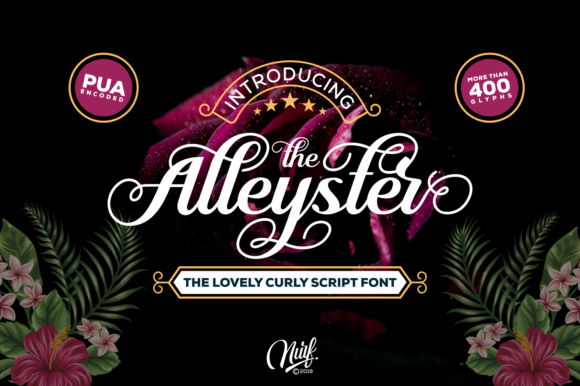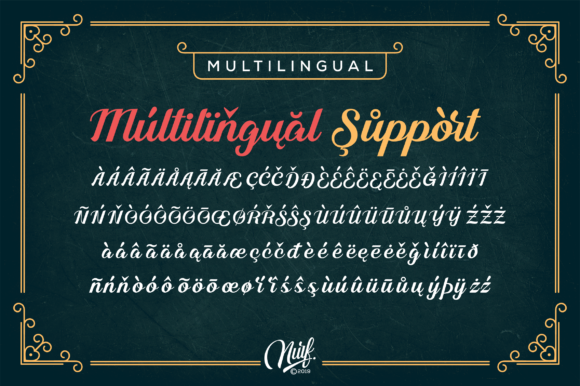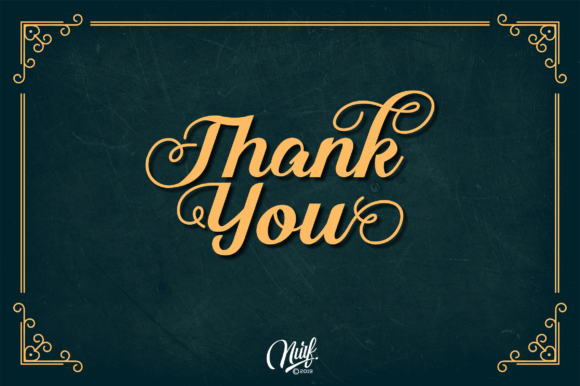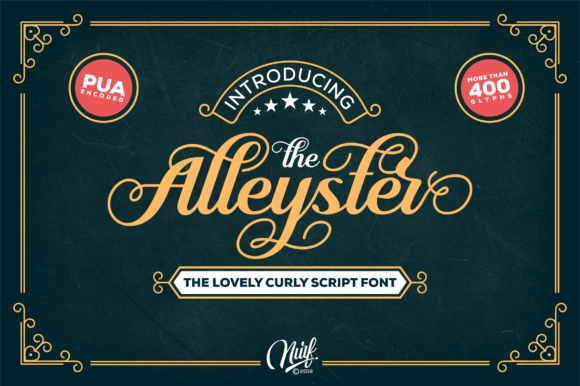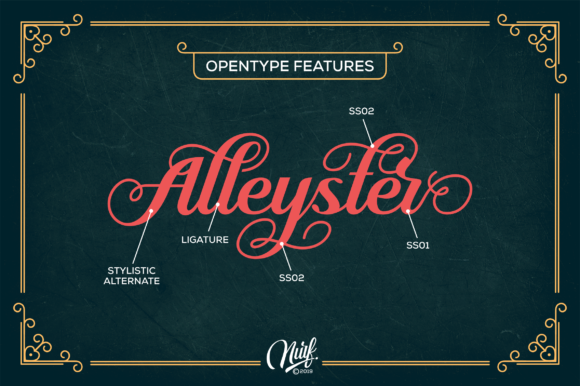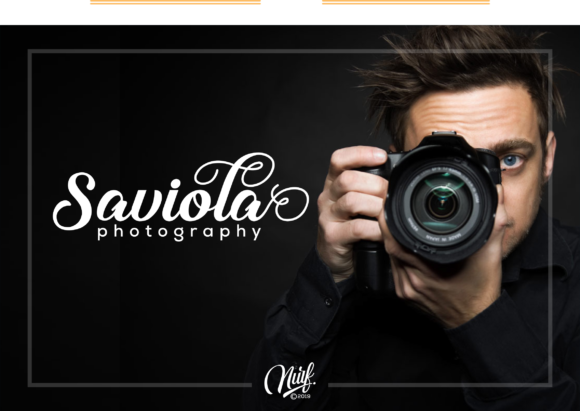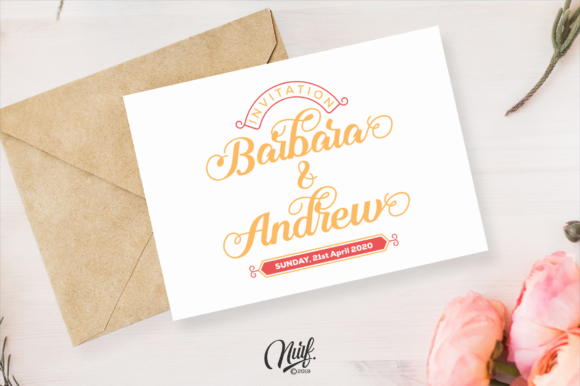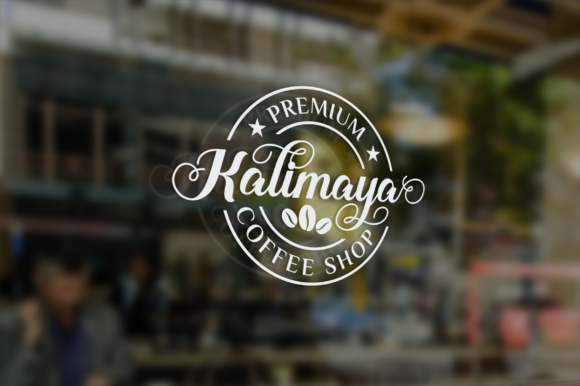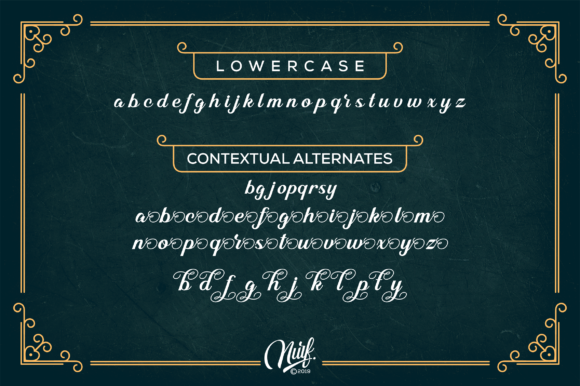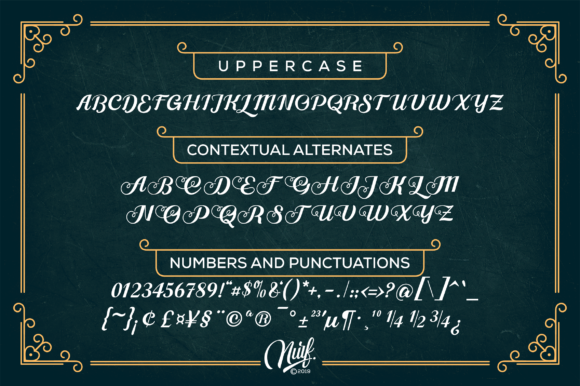
Alleyster Font
About Alleyster Font
The Alleyster is a lovely curly script font. It has a modern calligraphy style and includes amazing handwritten characters.
It’s perfect for logos, posters, headlines, and every other design which needs to stand out!